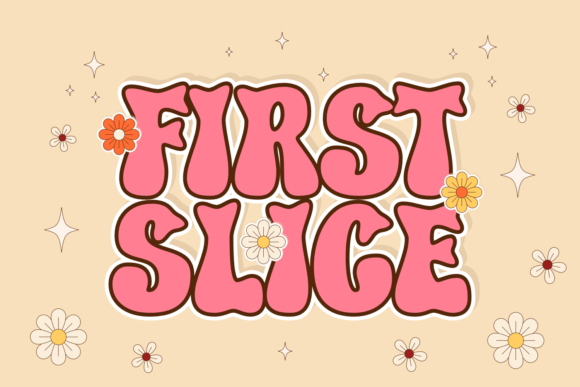
Introducing First Slice Font, the ultimate choice for those seeking the best fonts for invitation designs! Created by the talented team at Creative Fabrica Fonts, this font family is a display font that will instantly captivate your audience.
First Slice is more than just a font – it's a burst of fun and joy that radiates through its thick and beautifully crafted characters. With its stunningly unique style, this font is bound to add a touch of cuteness and eye-catching appeal to any project you embark on.
Unleash your creativity and watch as First Slice takes your designs to new heights. Whether you're working on titles, posters, banners, signage, apparel, or even kids' t-shirts, this fabulous retro font is the perfect choice to make a lasting impression. Its versatility allows you to seamlessly incorporate it into various projects, ensuring that your creativity knows no bounds.
What sets First Slice apart from the rest is its ability to evoke emotions and create a sense of nostalgia. Each character is carefully designed to bring back memories of simpler times, reminding us of cherished moments and carefree days. This font is not just a tool – it's a storytelling device that adds depth and personality to your creations.
With First Slice, every word becomes a work of art. Its bold and playful nature invites your audience to engage with your content, leaving a lasting impact on their minds. Whether you're aiming to captivate potential customers or create a memorable experience for your loved ones, this font is your secret weapon.